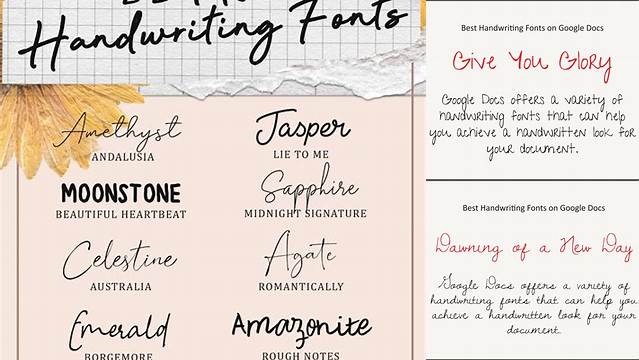
Handwriting Fonts Free On Google: Your Ultimate Guide
Discovering the perfect handwriting font free on Google can feel like finding a hidden treasure. It's more than just choosing a typeface; it's about injecting personality, warmth, and a touch of human element into your designs. In this comprehensive guide, we'll navigate the vast landscape of Google Fonts, explore the best free handwriting fonts, and show you how to seamlessly integrate them into your projects. Whether you're a seasoned designer, a budding blogger, or simply someone who loves the charm of handwritten notes, this is your go-to resource. So, grab a comfy seat, and let's dive into the world of beautiful, free handwriting fonts!
1. Unveiling the Best Free Handwriting Fonts from Google Fonts
When it comes to finding the right handwriting font free options, Google Fonts is the goldmine. It boasts a diverse collection, catering to a multitude of styles – from elegant scripts to casual scribbles. The beauty of Google Fonts lies not only in its variety but also in its ease of use. All fonts are open-source, making them available for both personal and commercial projects without any licensing headaches. This section explores some of the best free handwriting fonts that Google Fonts has to offer, each with its unique character and appeal. Let's start with Dancing Script, a popular choice that perfectly captures the fluidity of handwriting. Its elegant strokes make it ideal for invitations, headings, and any project that benefits from a touch of sophistication. Then there is Caveat, a more playful font that brings a sense of informality. Perfect for websites, posters, or branding materials, its versatile charm ensures legibility while maintaining that handwritten feel. Consider also Patrick Hand and Shadows Into Light Two. These fonts are great for creating a more personal feel. Patrick Hand has a simple, clear appearance that mimics the look of a handwritten note. Shadows Into Light Two, on the other hand, creates the impression of writing with a shadow effect that gives depth and uniqueness. Google Fonts also provides options like Homemade Apple and Reenie Beanie, each bringing a specific personality that makes the design of various materials more engaging. The selection doesn't end here. Google Fonts is constantly updated. It is essential to regularly explore what is available to keep your design fresh and relevant. Every font offers different characteristics, which can transform your project with the character you need.
1.1. Why Choose Free Handwriting Fonts?
1.2. Finding the Perfect Handwriting Font: Key Considerations
Choosing the right handwriting font free requires a thoughtful approach. It's essential to consider the overall tone and message you want to convey. Start by figuring out the mood of your project. Do you need elegance, playfulness, or something in between? The chosen font should match the overall concept. Look at the legibility of the font, especially at different sizes. Some fonts are meant for titles, while others are suitable for body text. Test the font to see if it remains clear and readable. Think about where the font will be used – in digital or print media. Some fonts work well on screen but don’t translate well into print. Others can lose their impact when viewed on smaller screens. The chosen font has to be appropriate for the platform on which it is displayed. The design's overall readability is affected by this. Also, be aware of the context. A font that is suitable for a children's book will be different from one for a business report. Make sure that the font has the right feel for the target audience. Don't forget the visual harmony. The handwriting font needs to complement other design elements, such as colors, images, and layouts. The style of the font should match the aesthetic style. In addition, consider the font's character set. Ensure that it supports all the characters and special symbols you need. Some free fonts may lack a wider range of characters. Research the font's license to ensure it meets the project's usage terms. Most Google Fonts are open-source, but it’s always good to double-check.
2. Integrating Handwriting Fonts into Your Designs: A Step-by-Step Guide
2.3. Common Mistakes to Avoid When Using Handwriting Fonts
When using a handwriting font free, avoiding common pitfalls can significantly improve your design’s effectiveness. One of the most frequent mistakes is to overuse the font. While handwriting fonts are wonderful for adding personality, using them throughout an entire document can make the text hard to read and tiring for the reader. Limit their use to headings, titles, and short phrases. Another mistake is choosing a font that is not legible. Some handwriting fonts are highly stylized and can be difficult to decipher, especially at smaller sizes or on screen. Always ensure the chosen font remains clear and easy to read, regardless of the context. Always check the font's readability on different devices and screens. A third mistake is to ignore contrast. Handwriting fonts can lose their effect if they don't contrast with the background. Ensure the text stands out clearly by using a background color and font color with sufficient contrast. If you're using an image, make sure that the text is easily read against the image. Also, it is important to select the wrong font for the message. Always match the font's style with the project's tone and target audience. A formal event would be better with a formal font. In this way, you ensure that your design communicates what you want. Another mistake is improper kerning and spacing. The space between letters and words needs to be adjusted to ensure readability. Poorly spaced text can make your design look amateurish and unpolished. Before you finalize, it is very important to review your design. Ask other people to assess your design and provide feedback. This will help to identify any potential issues and ensure that your design is easy to read and appealing.
3. Top Google Handwriting Fonts for Different Design Needs
Selecting the perfect handwriting font free from Google Fonts depends heavily on your project's specific needs. This section explores font suggestions for various design categories. For websites and blogs, fonts like Permanent Marker and Coming Soon can give your site a friendly and personal feel. These fonts are perfect for the titles, headers, and calls to action. Make sure these fonts are easy to read and responsive across all devices. For invitations and cards, you might want more elegant handwriting fonts such as Great Vibes or Rochester. These fonts offer a classic and stylish look. Choose fonts with a higher level of detail, and test them to guarantee readability at small sizes. For social media graphics and branding, fonts like Indie Flower and Architects Daughter can create a casual and eye-catching appearance. These fonts work best when combined with other fonts. Make sure the fonts reflect the brand's personality. Always keep the fonts consistent for better branding. For children's projects and educational materials, fonts such as Schoolbell and Gloria Hallelujah may be a better choice. These fonts have a playful and friendly feel. Make sure the chosen fonts are easily readable, since these materials often involve younger audiences. Don't forget the use of accessibility standards to include people with special needs. Remember that choosing the right font is about more than just looks. It's about creating designs that are both visually appealing and communicative, tailored to the specific audience and project.
7. Conclusion: Embracing the Charm of Handwriting Fonts
In conclusion, handwriting font free options from Google Fonts and other sources open up a world of creative possibilities. From adding a personal touch to your website to creating stunning invitations, handwriting fonts provide a unique flair. The key is to explore, experiment, and follow the guidance provided in this guide. Whether you're just starting your design journey or an experienced professional, embrace the charm of handwriting fonts, and let your designs speak with a touch of human warmth and individuality. Happy designing!